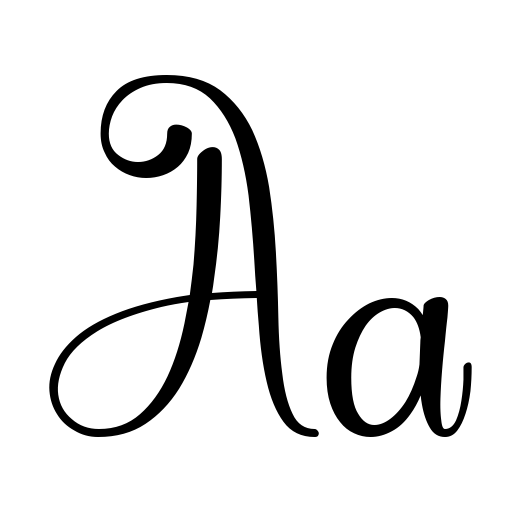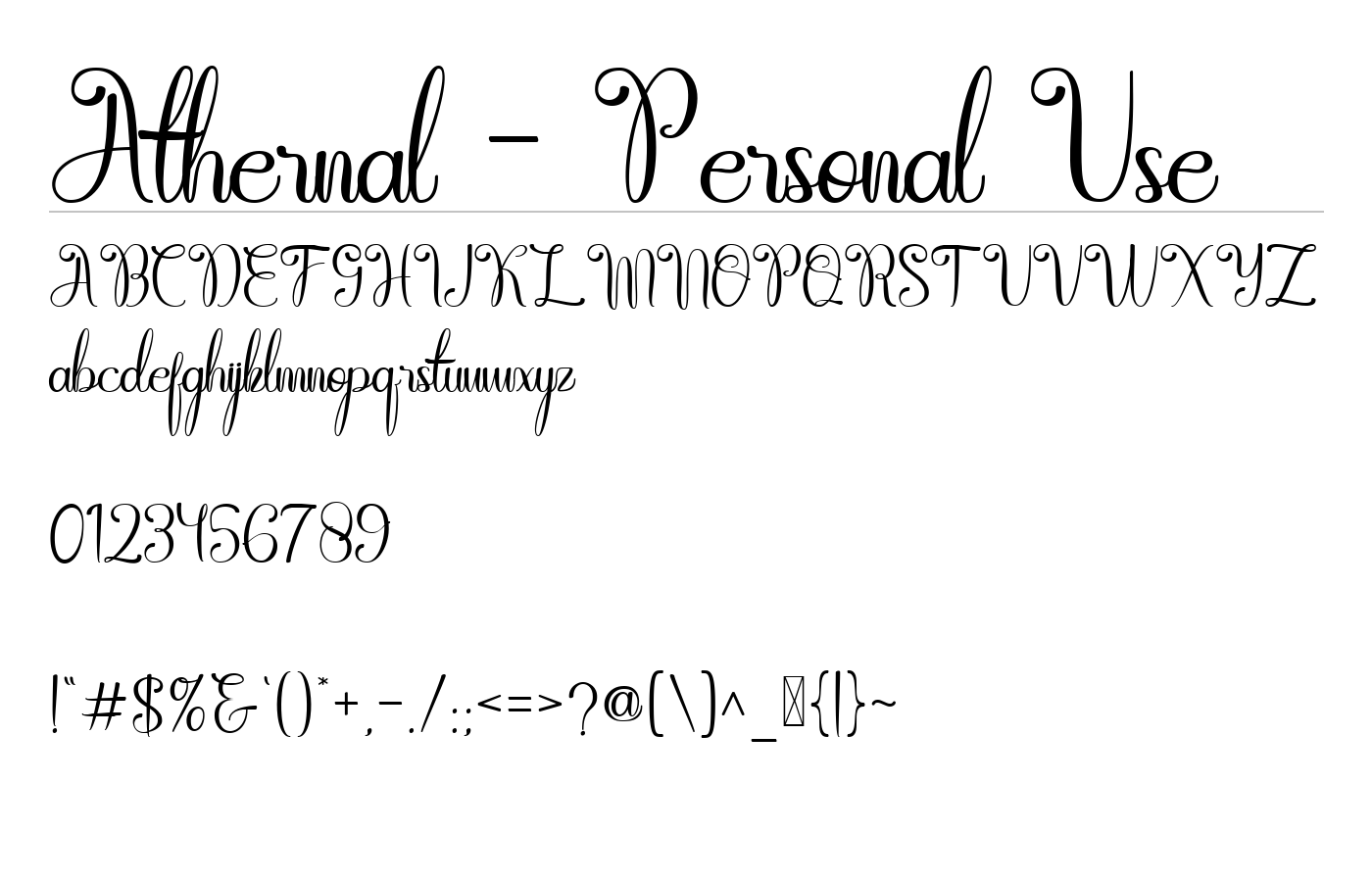
Athernal is an elegant, whimsical script font characterized by tall, slender letterforms with playful curls and loops, creating a delicate and ornamental appearance. Its light weight and smooth, flowing strokes give it a refined yet approachable personality, making it ideal for creative branding, invitations, and decorative headline use where a touch of charm and sophistication is desired. This font excels in applications that benefit from its stylish, handcrafted feel without sacrificing readability in display settings.
Athernal - Personal Use Font
About Athernal - Personal Use Font